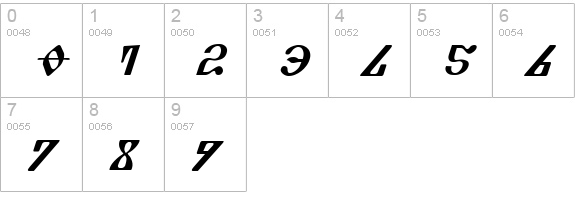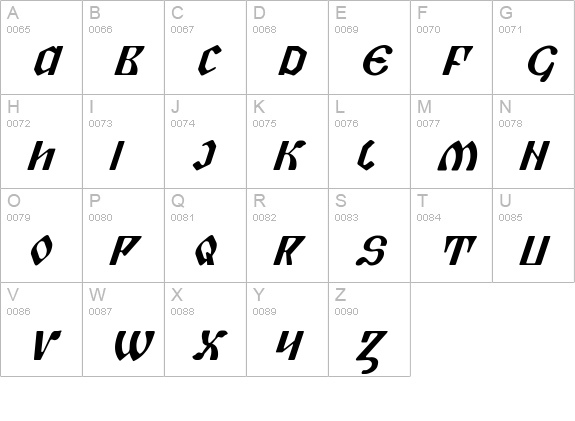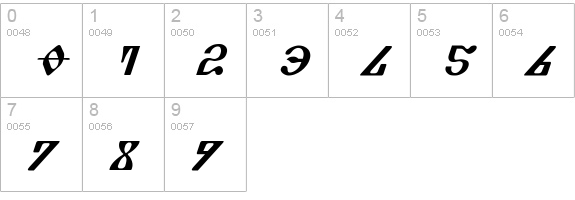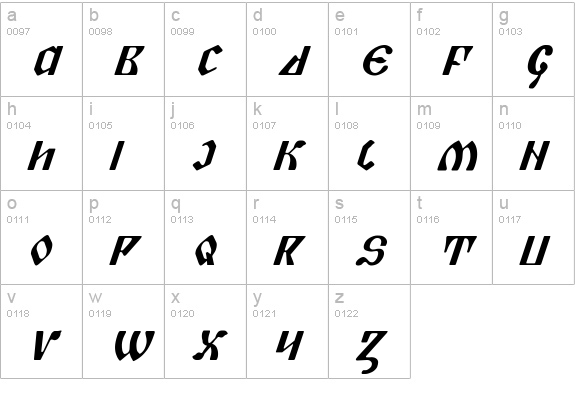
Piper Pie Italic is a distinctive, italic variant in the Piper typeface family \xE2\x80\x94 well suited to design and typography projects.
Piper Pie Italic font is a charming and whimsical typeface that exudes a sense of playfulness and creativity. Its flowing italic design adds a touch of elegance and sophistication to any project, making it perfect for invitations, branding, and more. The gentle curves and unique letterforms of Piper Pie Italic bring a sense of warmth and friendliness to your designs, creating a welcoming and inviting atmosphere. Best of all, Piper Pie Italic font is available for free download at FontsMarket.com, making it easily accessible for all your creative needs. Whether you're designing a wedding invitation, crafting a logo, or adding a personal touch to your projects, Piper Pie Italic is the perfect choice to bring a touch of whimsy and style to your work. Download it today and let your creativity soar with this delightful and versatile font.